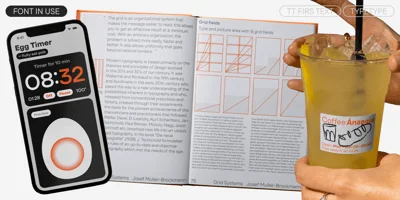
TT Firs Text Font
TT Firs Text Font is organically designed for nature conservation campaigns, outdoor recreation branding, environmental publishing projects, forest management communications, eco-friendly product packaging, national park materials, sustainable lifestyle magazines, and natural heritage documentation. This grounded typeface excels in environments requiring natural authenticity and forest-inspired appeal, making it perfect for environmental organizations, outdoor brands, conservation groups, and any organization needing to communicate natural harmony and forest preservation through distinctive typography.
What makes TT Firs Text Font so exciting is its authentic connection to forest ecosystems and natural typography traditions that captures the enduring strength and organic beauty of evergreen forests through carefully balanced letterforms. The font features naturally crafted characters with organic proportions and forest-inspired details that reflect the steady growth patterns of fir trees and the timeless appeal of woodland environments. Its natural construction and forest character make it incredibly effective for brands wanting to communicate environmental responsibility, natural authenticity, and forest conservation while appealing to audiences who value outdoor experiences and environmental stewardship.
TT Firs Text Font typically includes multiple weights and styles such as Light, Regular, Medium, and Bold, often accompanied by organic variants optimized for extended reading applications. The font family frequently features additional character sets including nature symbols, environmental icons, and forest glyphs that enhance its natural appeal. Each weight maintains the font's distinctive organic character while offering different levels of natural emphasis, providing designers with comprehensive tools for creating environmentally conscious brand identities and nature-focused communication materials.
Environmental professionals will find that TT Firs Text Font delivers outstanding performance in both conservation applications and outdoor marketing materials requiring natural credibility. The font's carefully crafted character set includes nature-appropriate letterforms, environmental symbols, and forest elements essential for conservation branding, outdoor recreation marketing, and environmental education materials. Its organic design makes it particularly effective for national parks, environmental nonprofits, outdoor gear companies, and sustainability-oriented marketing campaigns requiring authentic natural presence.
The thoughtful attention to natural proportions and organic spacing ensures that TT Firs Text Font maintains excellent readability while delivering maximum environmental impact. Its forest-inspired design language makes it particularly effective for conservation communications, outdoor recreation, environmental education, and sustainable lifestyle applications. The font's grounded appearance creates strong environmental credibility while remaining highly functional for projects requiring clear communication to nature enthusiasts and conservation-minded audiences.
For designers seeking a typeface that embodies forest wisdom with natural authenticity, TT Firs Text Font represents an exceptional choice that will ground any project with its distinctive character and natural forest heritage.